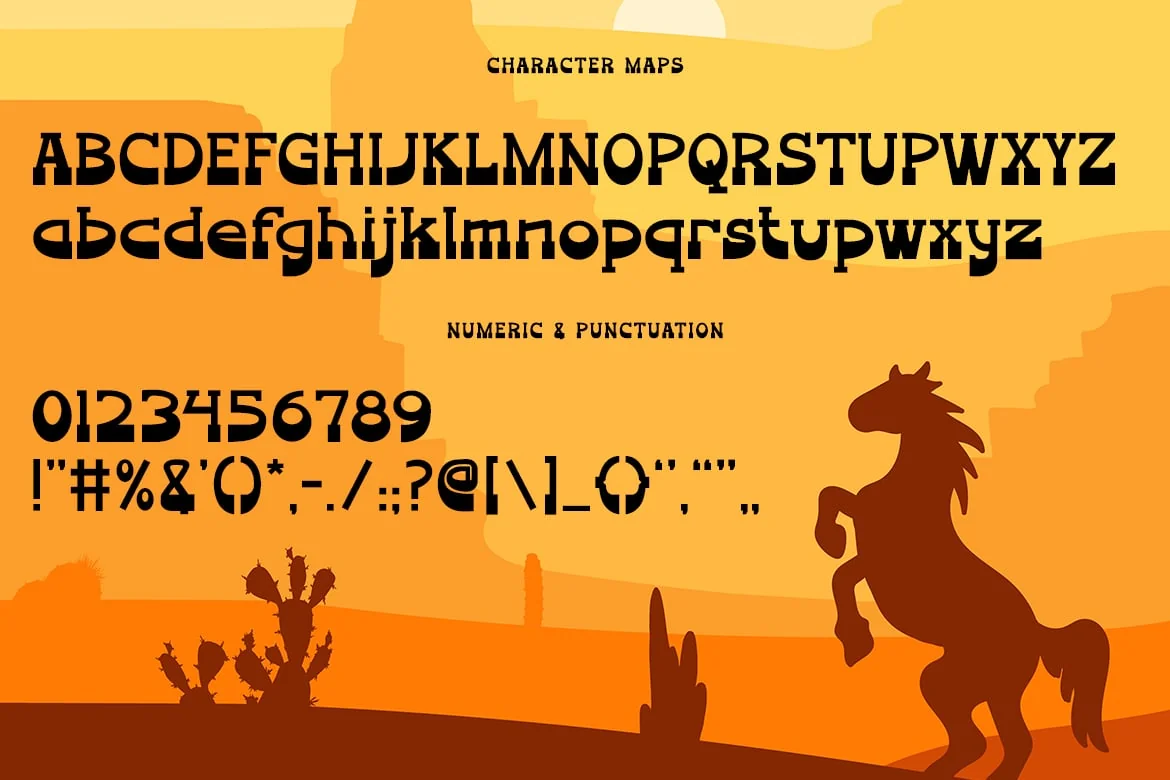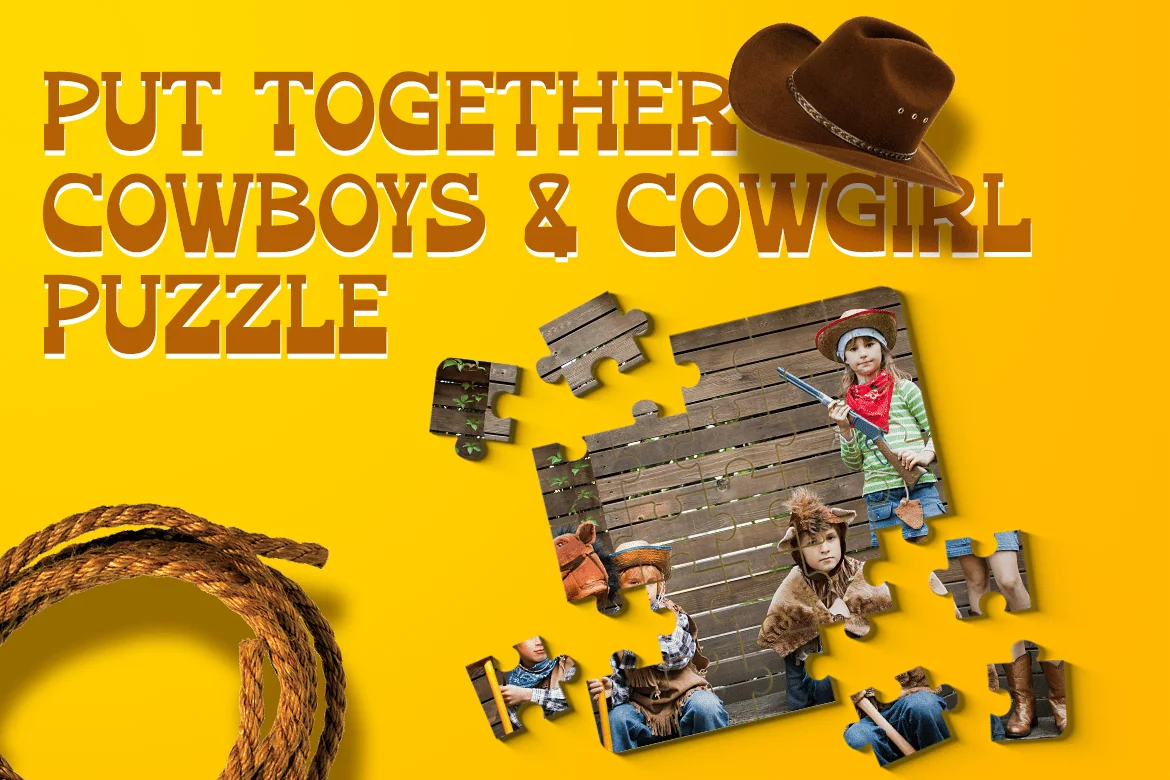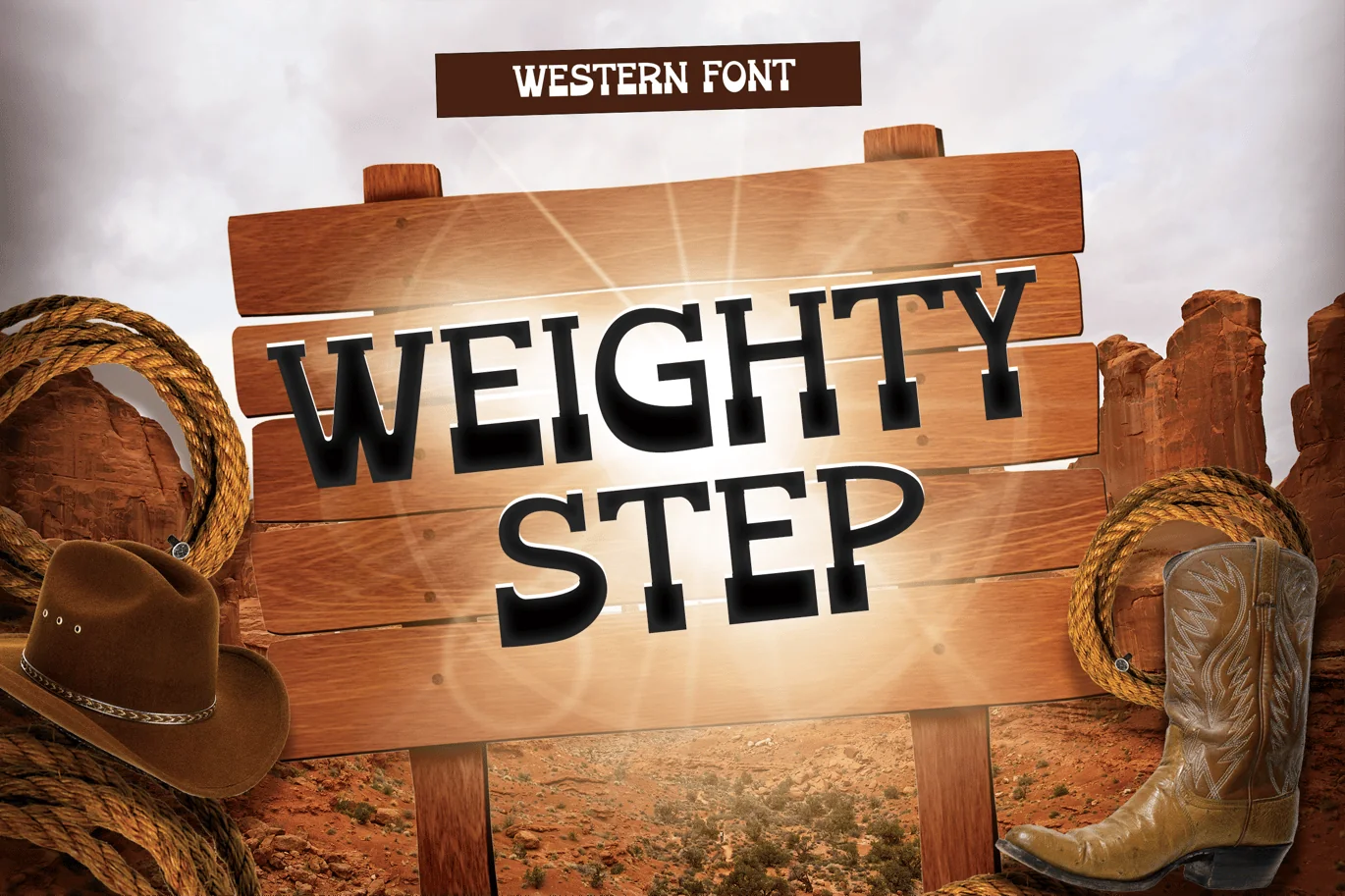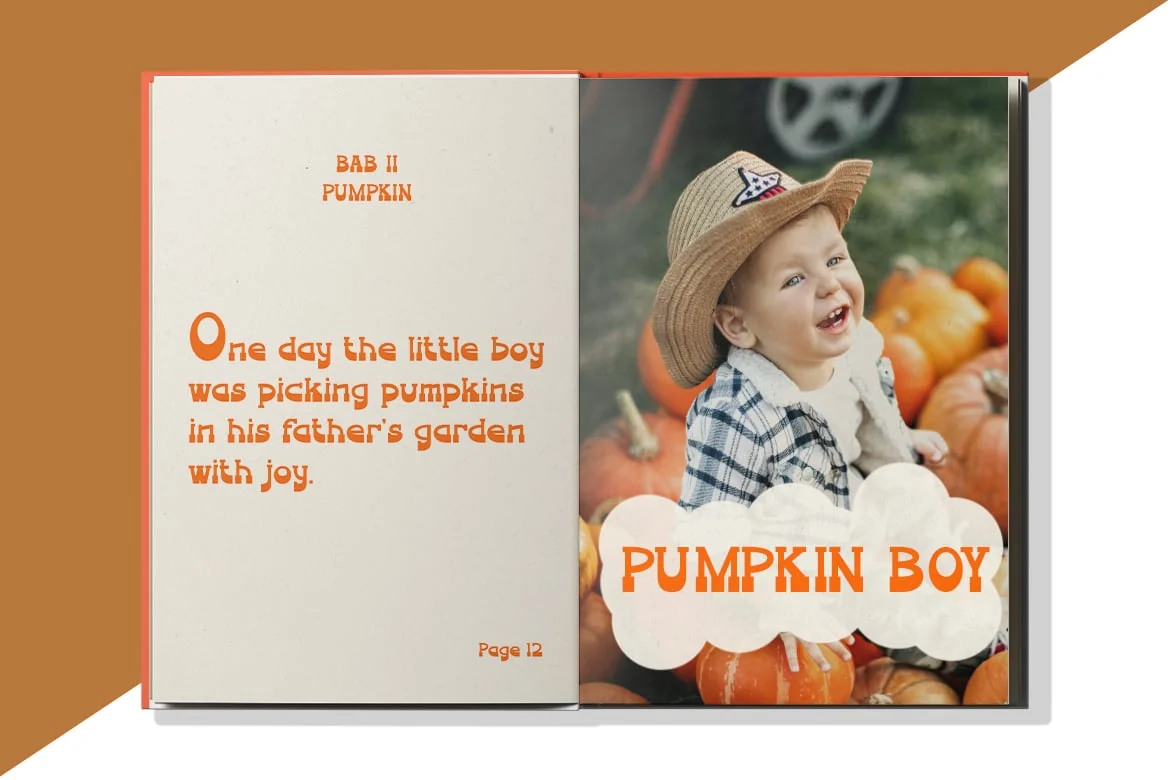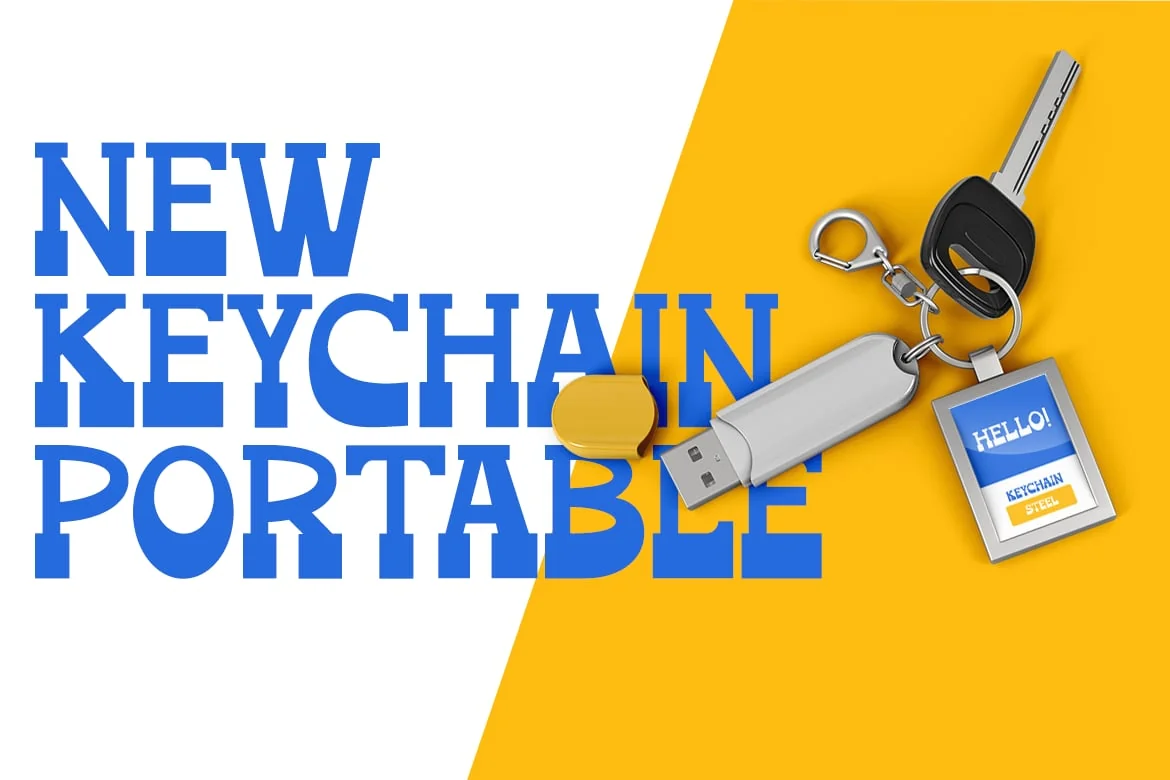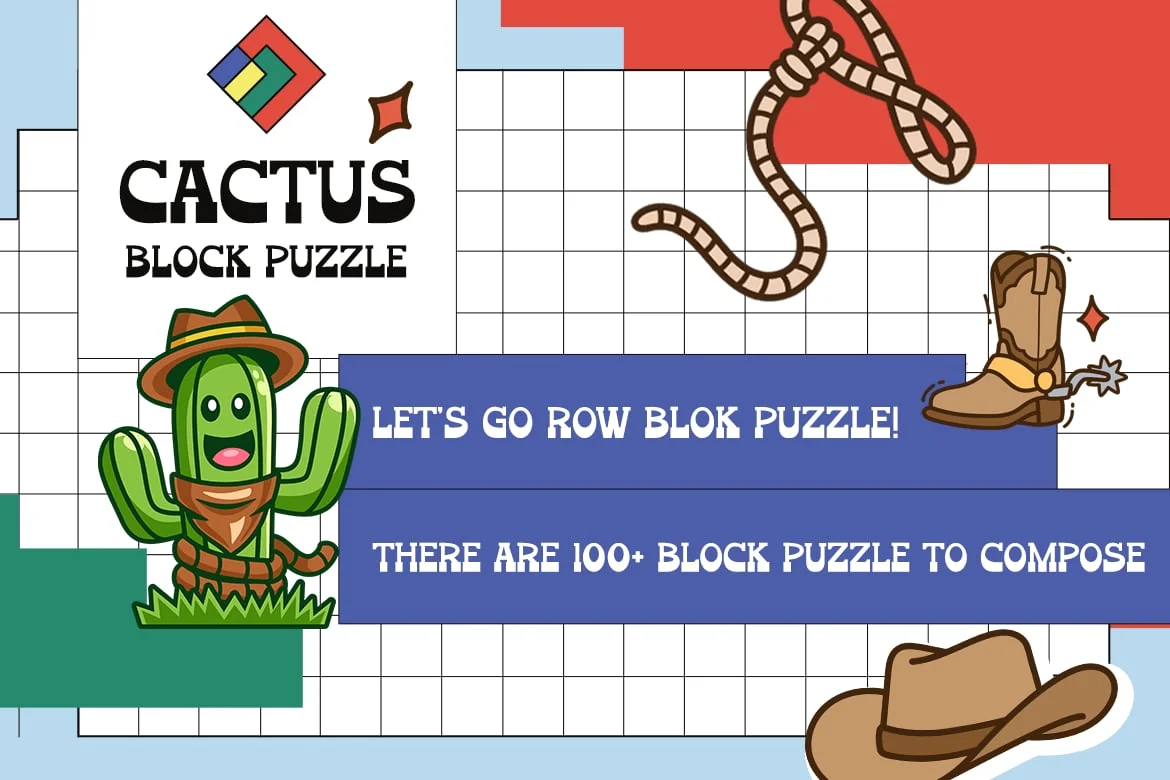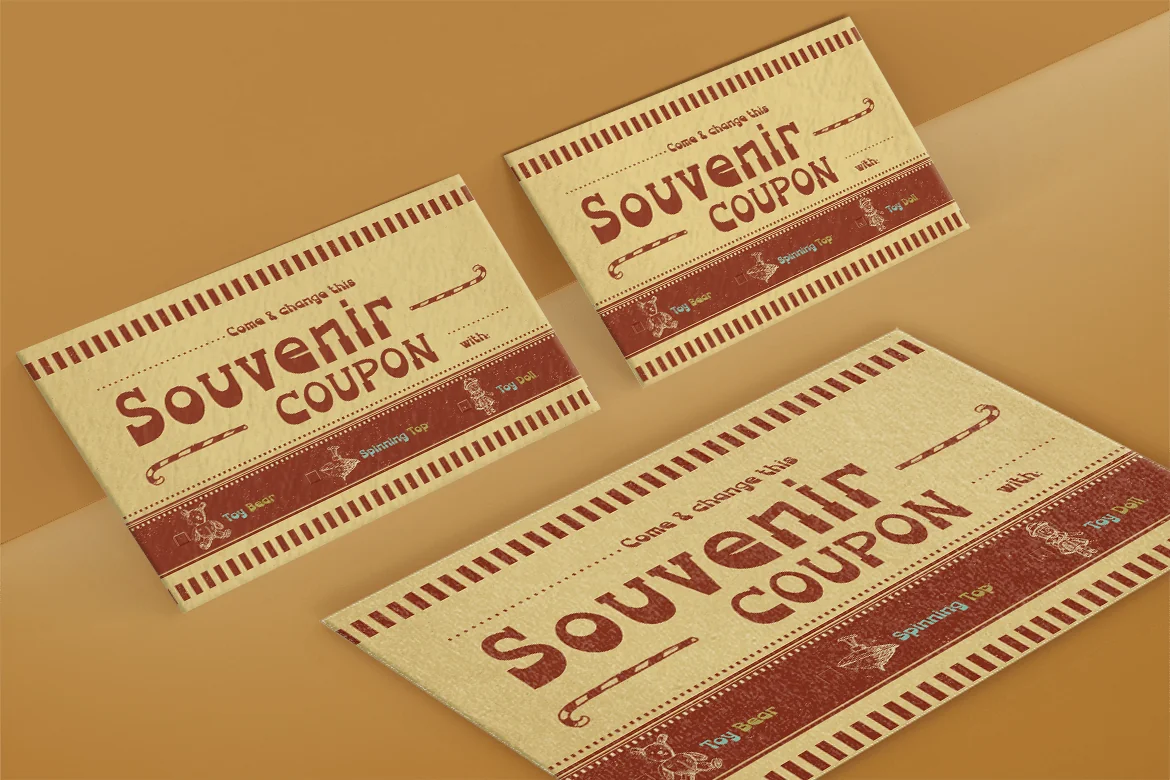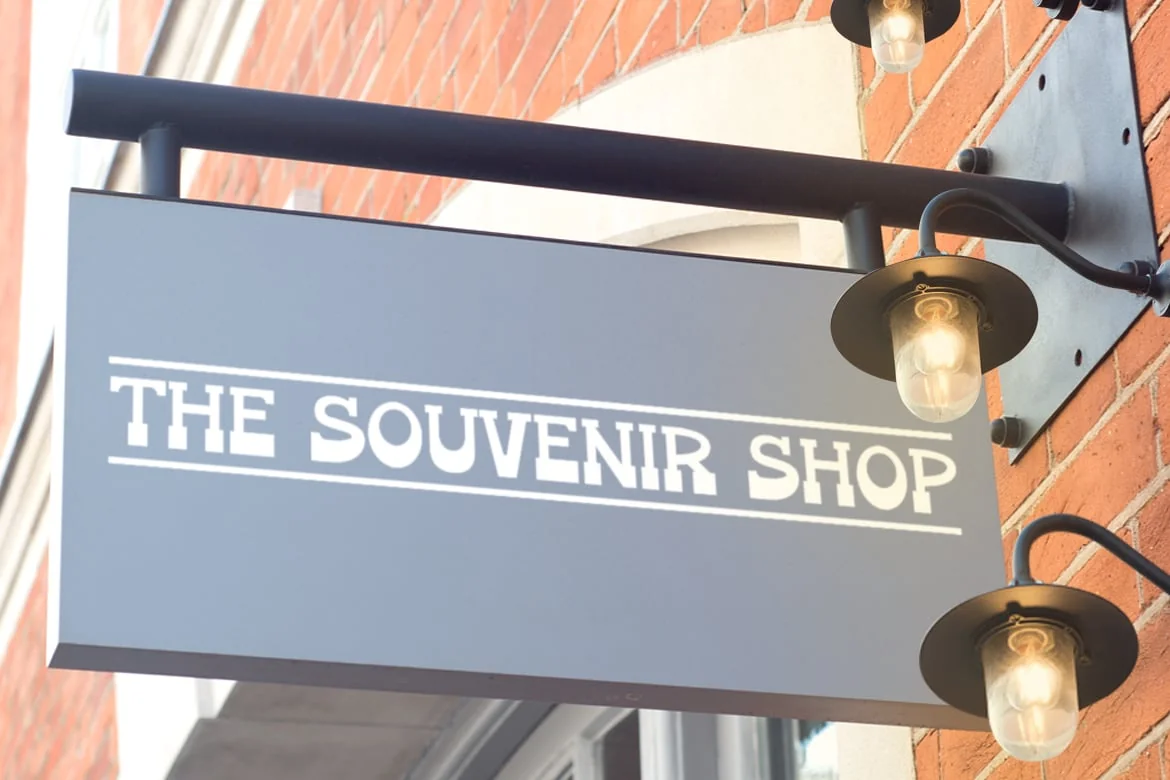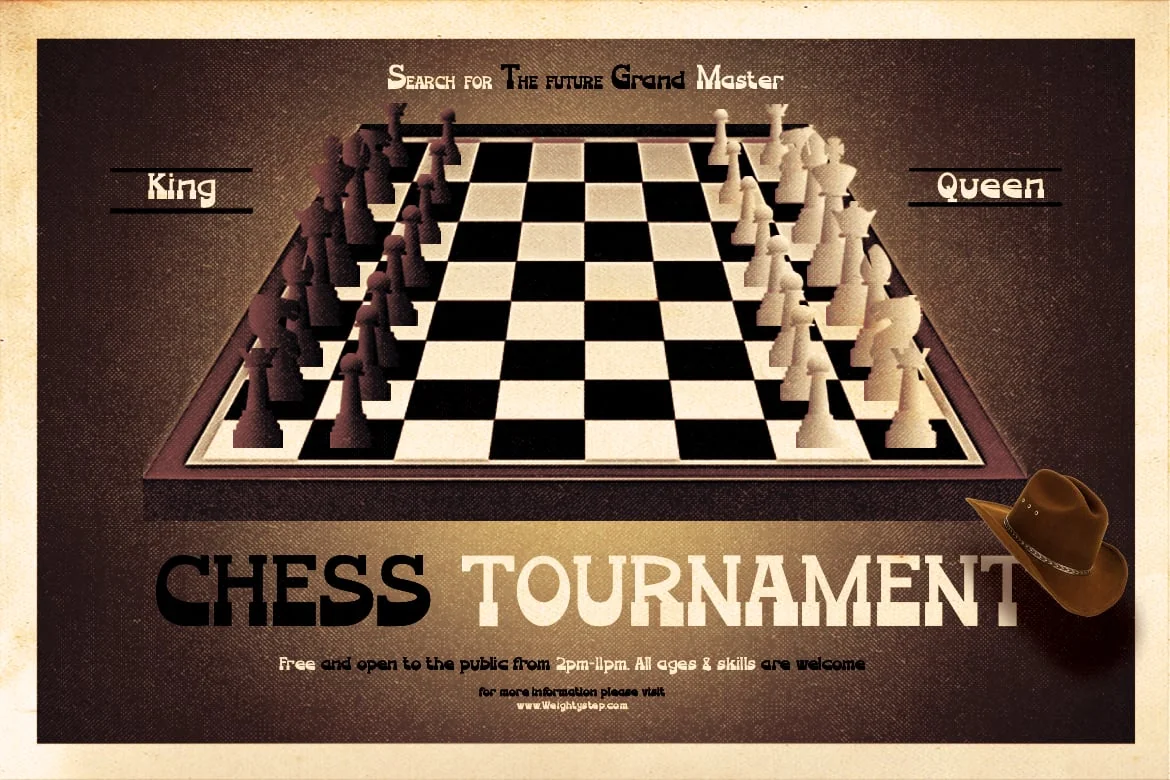
Weighty Step: A Playful Western Font for Kids
If you’re looking for a font that captures the playful spirit of the Wild West, look no further than Weighty Step. With its Western, cowboy, funny, and fun style, Weighty Step is the perfect font for creating designs that transport you to the days of the frontier.
This font is perfect for Western-themed games, cowboy event posters, YouTube covers, YouTube thumbnails, social media page covers, and more. Whether you’re creating content for a cowboy-themed party or designing a poster for a Western movie, Weighty Step is the perfect font choice for adding a touch of fun to your designs.
With its bold and quirky design, Weighty Step is the perfect font for anyone looking to create designs that capture the imagination of children. Its playful and humorous design will instantly grab the attention of your audience, making it the perfect font for any creative project.